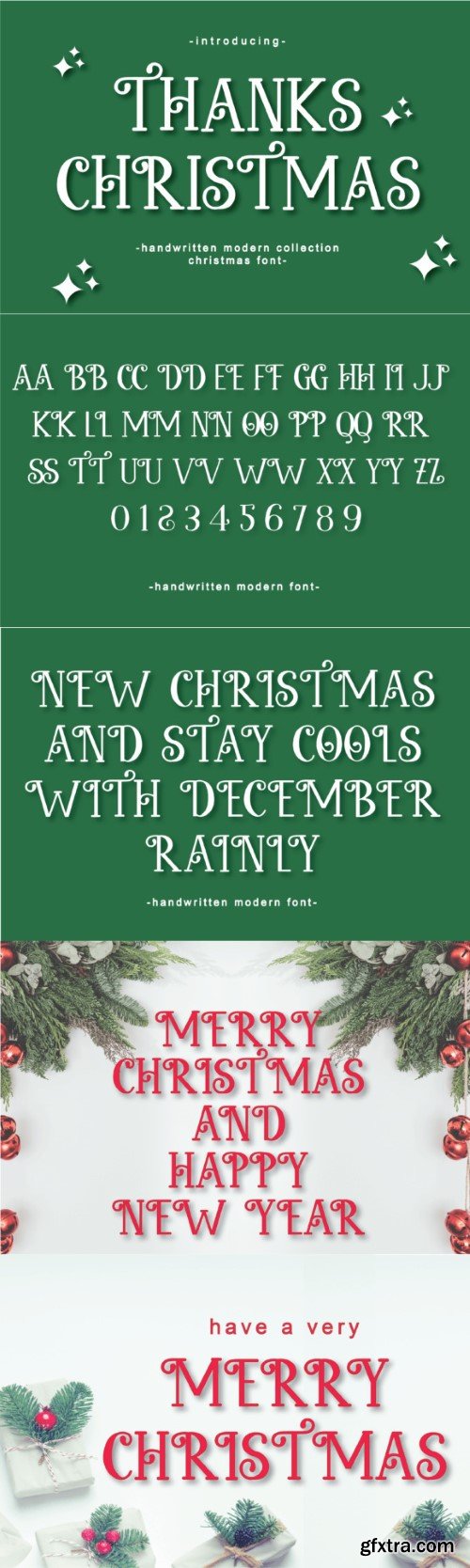
谢谢圣诞字体
Thanks Christmas playful and festive typeface that captures the youthful spirit of the holiday season. With its fun and quirky design, this font adds a touch of holiday cheer to your Christmas-themed designs.This font dedicated to awesome celebration days is perfect for writing wedding invitations, cards, or any other design that requires a soft, characterful touch!